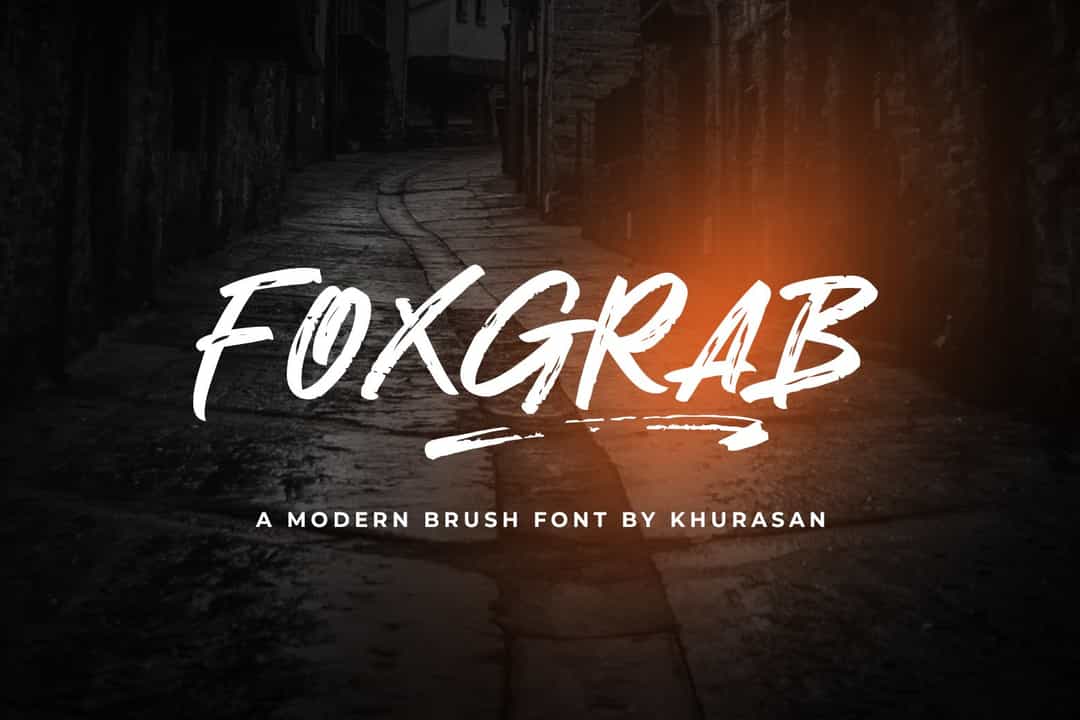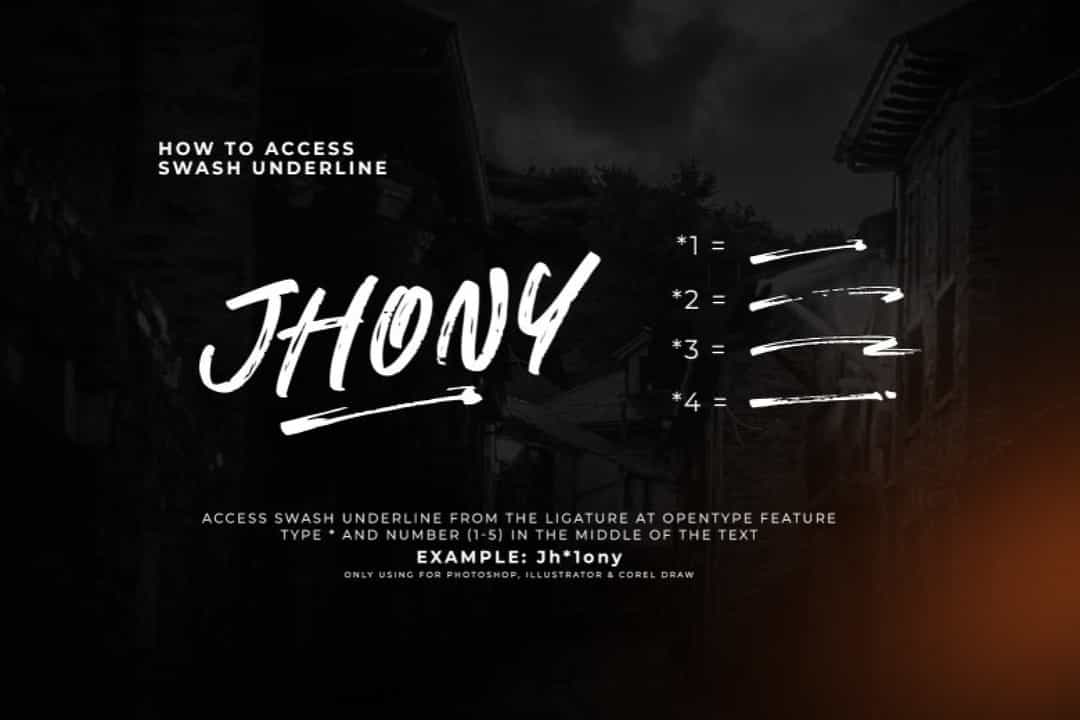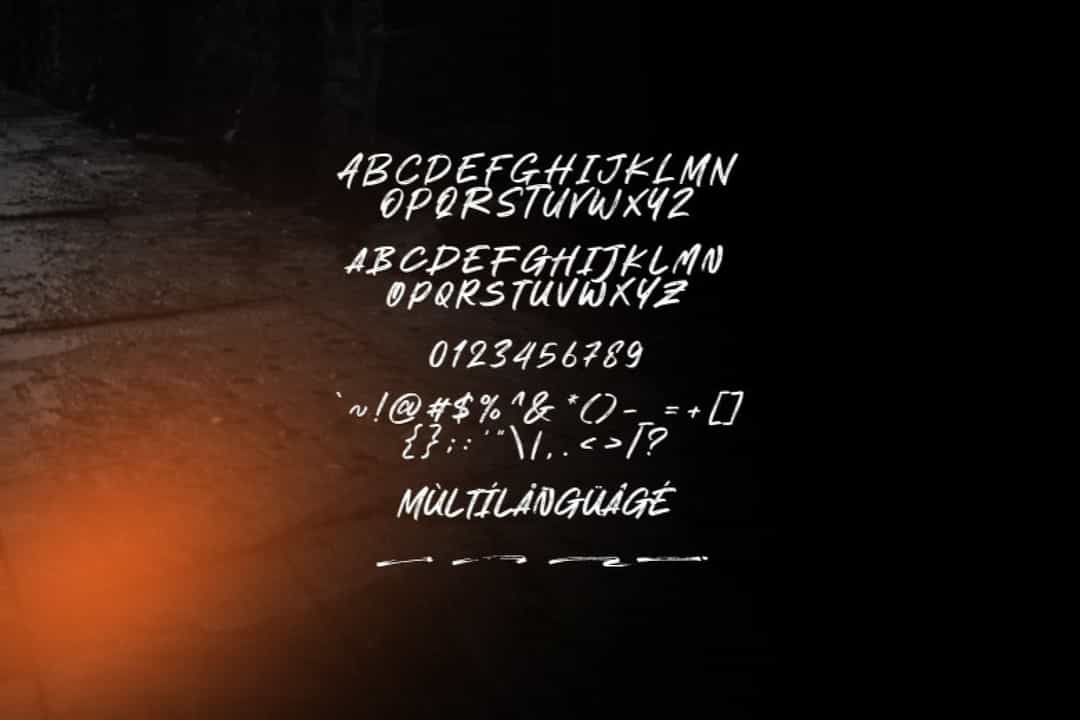
Foxgrab is a stylish brush font perfect for logos, posters, books, magazine covers and book covers, banners and many other applications! Make use of its handwritten font to design beautiful designs – it will fit right in with any number of creative projects! Include Foxgrab in your designs today to watch how they stand out!